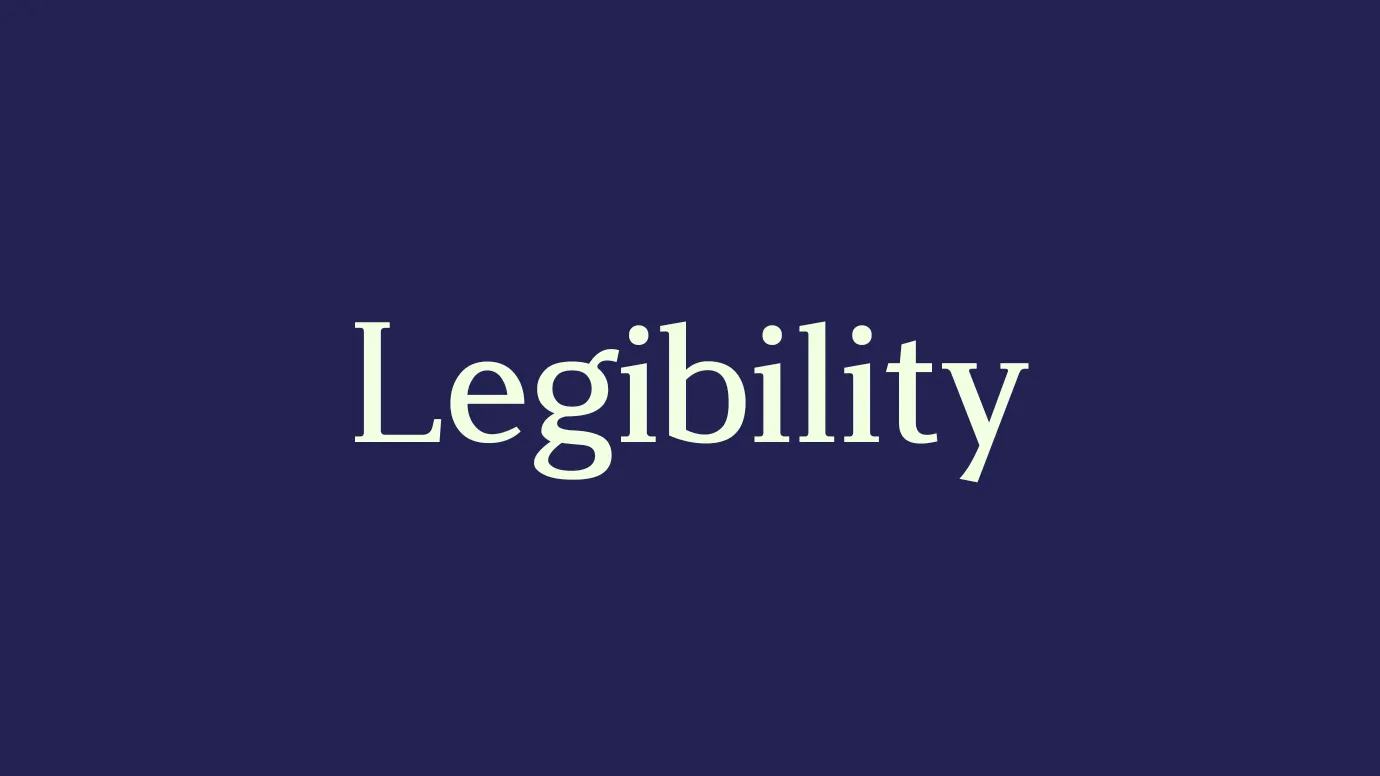
Legibility Font Family belongs to the Serif font type. This high-readability font was designed by Dan P. Lyons. The style of this typeface is very attractive and you can make all types of personal and commercial projects by using this font.
| Name | Legibility Font |
| Designer | Dan P.Lyons |
| Type | Serif |